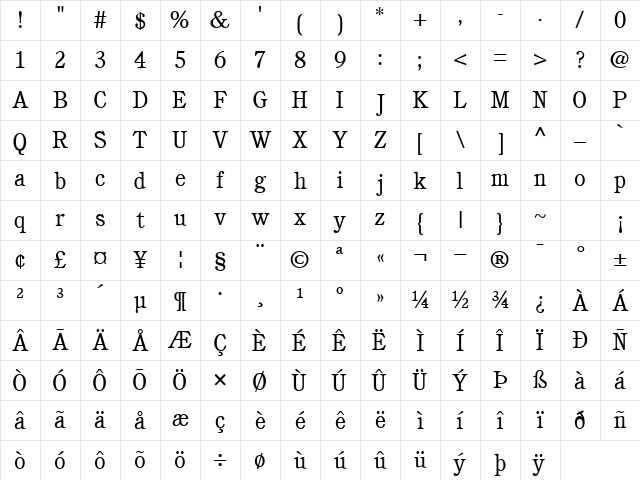
PerspectiveSSK Regular
PerspectiveSSK Family
Design Context for PerspectiveSSK
PerspectiveSSK is a composed and adaptable typeface that performs quietly and consistently across a wide range of design contexts.
Pro Tip: Use PerspectiveSSK in both headline and body roles to test its range before committing to a single application.